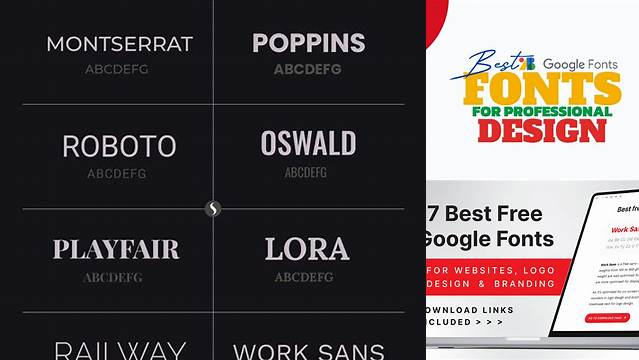
Top Google Fonts For Stunning Logo Design
Choosing the right font for your logo is super important, guys! It's like picking the perfect outfit – it needs to match your brand's personality and make a great first impression. With so many options out there, Google Fonts can be a goldmine. Let's dive into some of the best Google Fonts that can make your logo shine.
Why Google Fonts for Logos?
Google Fonts is a fantastic resource for several reasons. First off, it's completely free! You can use these fonts for personal and commercial projects without spending a dime. Plus, Google Fonts are easy to access and implement on websites and design software. They are also open source, which means they're constantly being updated and improved by a community of designers and developers. This ensures that the fonts are high-quality and compatible with various platforms.
Another great thing about Google Fonts is the sheer variety available. Whether you're looking for something modern and minimalist, classic and elegant, or playful and quirky, you're bound to find something that fits the bill. You can easily browse through different font families, styles, and weights to find the perfect match for your brand. And because they're web-safe, you can be confident that your logo will look consistent across different devices and browsers.
Finally, Google Fonts integrates seamlessly with other Google services and tools. If you're using Google Docs for your branding guidelines or Google Slides for presentations, you can easily incorporate these fonts into your documents. This makes it easy to maintain a consistent brand identity across all your marketing materials. Using Google Fonts for your logos ensures that you have a wide range of options, all of which are free, easy to use, and web-safe.
Top Google Fonts for Logo Design
Let's get into the nitty-gritty. Here are some top-notch Google Fonts that work wonders for logo design. We'll break them down by style to make it easier for you to find what you're looking for. Remember, the best Google Fonts are those that truly reflect your brand.
Serif fonts are characterized by the small decorative strokes (serifs) at the end of each character. They often convey a sense of tradition, authority, and elegance. These fonts are great for brands that want to project a classic or established image. For example, a law firm or a luxury brand might benefit from using a serif font in their logo.
Playfair Display
Playfair Display is an elegant and refined serif font that exudes sophistication. Its high contrast and delicate serifs make it perfect for luxury brands, fashion labels, and upscale restaurants. Using Playfair Display in your logo can instantly elevate your brand's image and create a sense of exclusivity. This font is particularly effective when paired with a minimalist design or a high-end color palette.
Merriweather
Merriweather is a classic serif font that offers a balance of readability and sophistication. Its slightly condensed letterforms and sturdy serifs make it a versatile choice for a wide range of brands. Whether you're designing a logo for a publishing company, a consulting firm, or an educational institution, Merriweather can help you convey a sense of trustworthiness and reliability. It also works well in both headlines and body text, making it a great option for creating a cohesive brand identity.
Arvo
Arvo is a slab-serif font that has a strong and commanding presence. Its bold, blocky serifs and geometric letterforms make it ideal for brands that want to project a sense of strength and stability. This font is particularly well-suited for companies in the construction, manufacturing, or technology industries. Using Arvo in your logo can help you create a memorable and impactful brand identity that stands out from the competition.
Sans-serif fonts lack the decorative strokes found in serif fonts. They tend to appear more modern, clean, and minimalist. Sans-serif fonts are ideal for brands that want to project a contemporary and approachable image. Tech startups, creative agencies, and fitness brands often choose sans-serif fonts for their logos.
Montserrat
Montserrat is a popular sans-serif font that has a clean and modern aesthetic. Its geometric letterforms and balanced proportions make it a versatile choice for a wide range of brands. Whether you're designing a logo for a tech company, a design agency, or a fashion brand, Montserrat can help you create a sleek and professional image. This font is also highly readable, making it a great option for websites and marketing materials.
Lato
Lato is a humanist sans-serif font that has a warm and friendly feel. Its rounded letterforms and open counters make it approachable and inviting. This font is particularly well-suited for brands that want to convey a sense of empathy and connection. Whether you're designing a logo for a healthcare provider, a non-profit organization, or a customer service company, Lato can help you create a positive and welcoming brand identity.
Open Sans
Open Sans is a highly versatile sans-serif font that is known for its readability and clarity. Its clean and simple letterforms make it a great choice for a wide range of applications, including logo design, websites, and mobile apps. Whether you're designing a logo for a small business or a large corporation, Open Sans can help you create a professional and accessible brand identity. Its neutral and unobtrusive design ensures that it works well with a variety of different styles and colors.
Script Fonts
Script fonts resemble handwriting and can add a touch of elegance, creativity, or playfulness to your logo. These fonts are perfect for brands that want to project a personal and artistic image. Script fonts are often used by businesses in the beauty, fashion, and event planning industries.
Pacifico
Pacifico is a fun and friendly script font that has a retro-inspired feel. Its flowing letterforms and rounded terminals make it approachable and inviting. This font is particularly well-suited for brands that want to convey a sense of nostalgia or whimsy. Whether you're designing a logo for an ice cream shop, a surf brand, or a children's boutique, Pacifico can help you create a memorable and playful brand identity.
Great Vibes
Great Vibes is an elegant and formal script font that exudes sophistication and grace. Its flowing letterforms and delicate flourishes make it perfect for luxury brands, wedding planners, and high-end boutiques. Using Great Vibes in your logo can instantly elevate your brand's image and create a sense of exclusivity. This font is particularly effective when paired with a classic color palette and a minimalist design.
Lobster
Lobster is a bold and eye-catching script font that has a vintage-inspired feel. Its condensed letterforms and elaborate swashes make it perfect for brands that want to make a statement. Whether you're designing a logo for a retro diner, a barber shop, or a tattoo parlor, Lobster can help you create a memorable and distinctive brand identity. This font is particularly effective when used sparingly and paired with a strong color palette.
Tips for Choosing the Best Google Font
Choosing the best Google Fonts isn't just about picking something that looks cool. Here are some tips to help you make the right choice:
- Consider Your Brand Identity: What is your brand's personality? Are you modern and minimalist, or classic and elegant? Your font should reflect these qualities.
- Ensure Readability: Make sure your logo is easy to read, even at small sizes. Avoid overly decorative fonts that can become illegible.
- Think About Scalability: Your logo will be used in various sizes, from business cards to billboards. Choose a font that looks good at any scale.
- Check Font Pairing: How does your chosen font pair with other fonts you're using for your website and marketing materials? Consistency is key.
- Test It Out: Before finalizing your logo, test it on different backgrounds and in different colors. See how it looks in both print and digital formats.
Finding the best Google Fonts for your logo can be a game-changer. Take your time, experiment with different options, and don't be afraid to get creative. With a little research and a keen eye for design, you can create a logo that truly represents your brand and makes a lasting impression. Happy designing, guys!